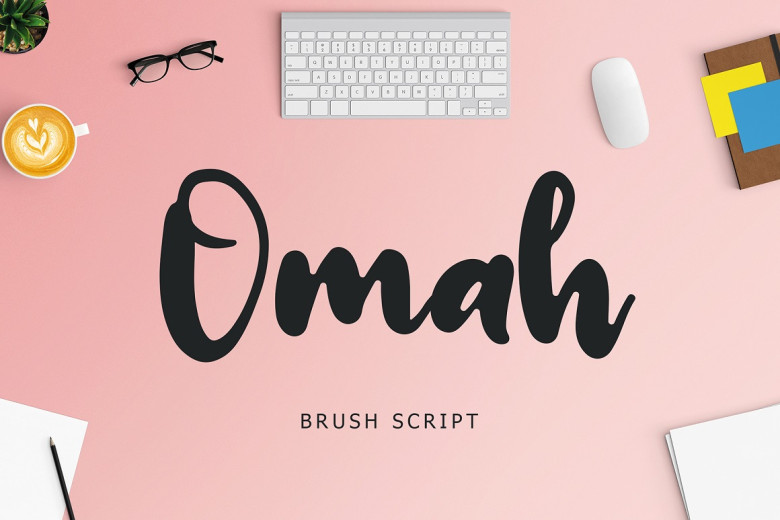
Omah Font
Omah is an elegant handwritten font with distinct brush styles. Its relaxed style makes it look extremely readable and easily adaptable to different settings – it looks equally beautiful whether used for busy backgrounds or as a standalone headline!
Omah Brush Script Font